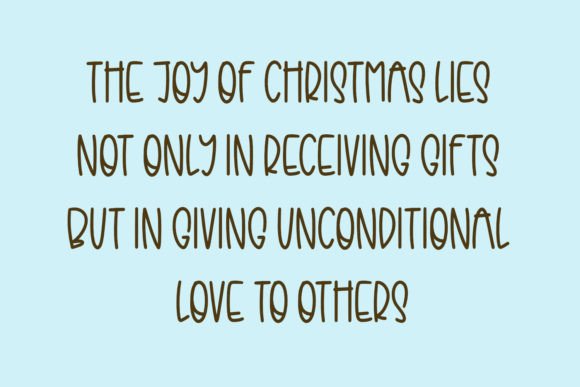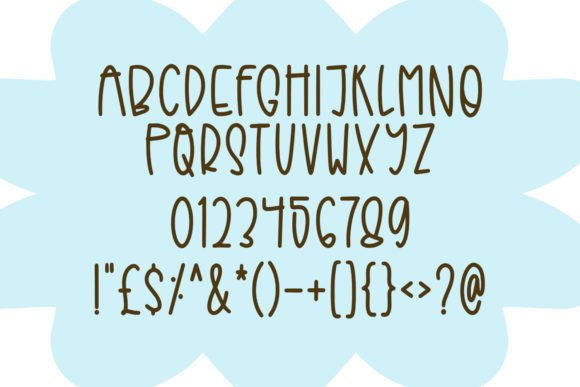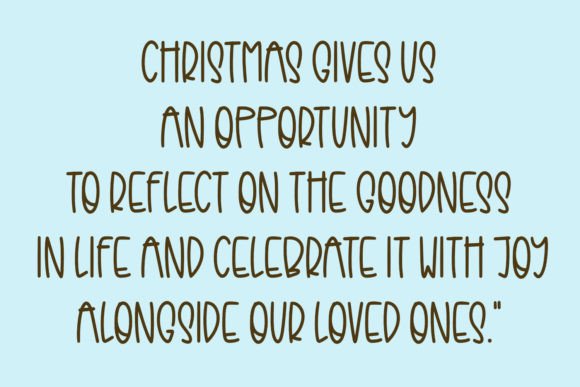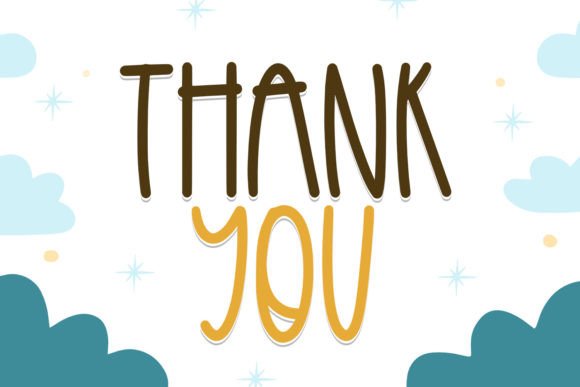
The Ultimate Winter Wonderland Font: Besties Winter Font
As a designer, I’ve had my fair share of late nights scouring the internet for the perfect font to bring a client’s vision to life. But one winter evening, while working on a festive project, I stumbled upon a gem that changed the game: Besties Winter Font. This charming sans-serif handwritten font has been a staple in my design toolkit ever since, and I’m excited to share its magic with you!
• ✅ Unique and playful handcrafted style that adds a touch of fun to any design
• ✅ Charming and distinctive appearance that’s perfect for creative and eye-catching designs
• ✅ Extensive OpenType features, including glyphs and stylistic alternates
While Besties Winter Font is an amazing addition to any design project, there are a few things to keep in mind:
• 🤔 Some characters may not work well in all contexts, so be sure to test the font thoroughly
The Story Behind Besties Winter Font
Besties Winter Font was designed with the intention of capturing the magic of winter in a playful and charming way. The designer, inspired by the joy of childhood winters, aimed to create a font that would bring a smile to anyone’s face. With its unique and handcrafted style, Besties Winter Font is sure to add a touch of fun to any design project.
Q: What makes Besties Winter Font unique?
A: Besties Winter Font’s unique blend of playful and handcrafted style sets it apart from other fonts.